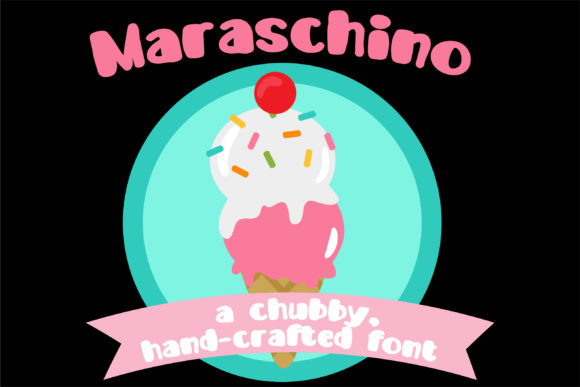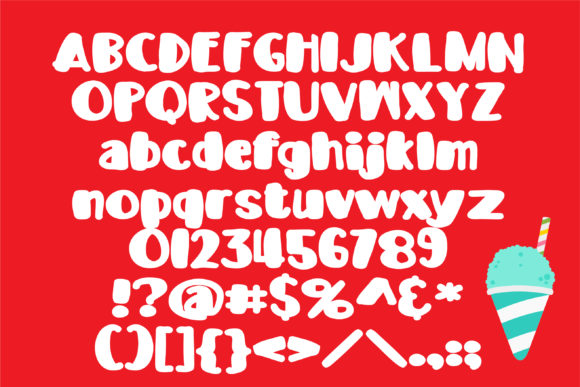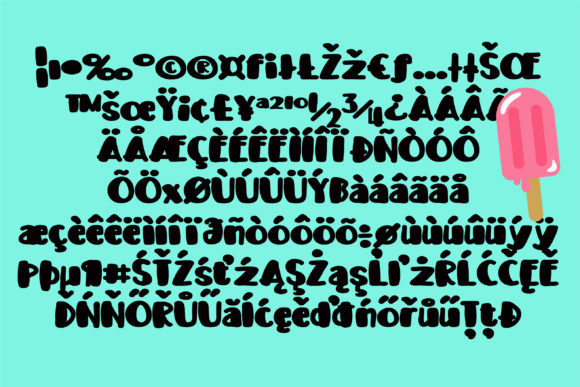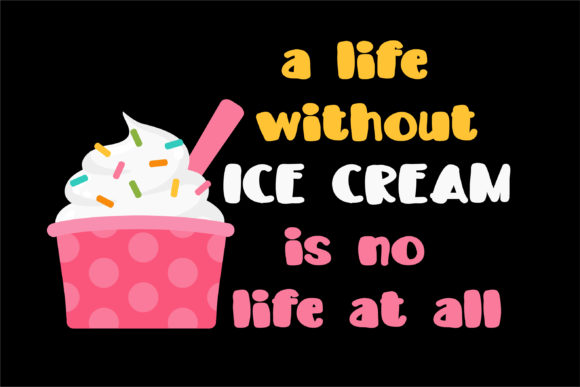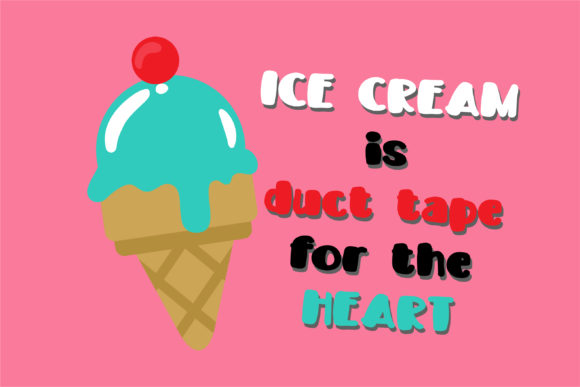
Maraschino Font
About Maraschino Font
Maraschino is a fun and cool handwritten font with a cool twist. Get inspired by its uniqe feel, and turn any design project into a true standout!